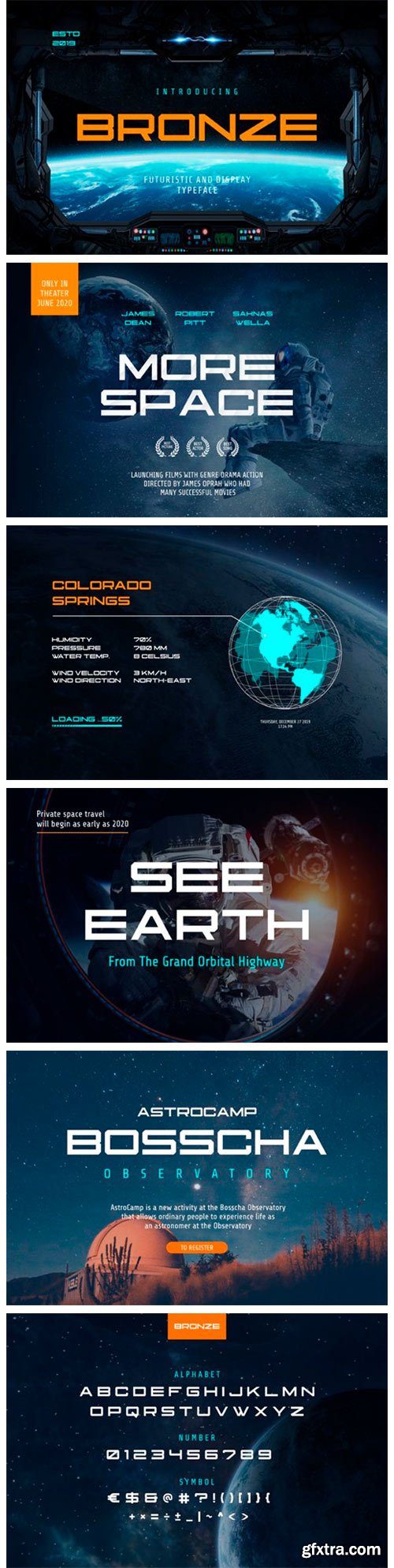
Bronze Font
Bronze is a smart and modern display font with a futuristic feel. It will work well in logos, branding, packaging, posters, invitations, Social and a wide range of advertising projects!